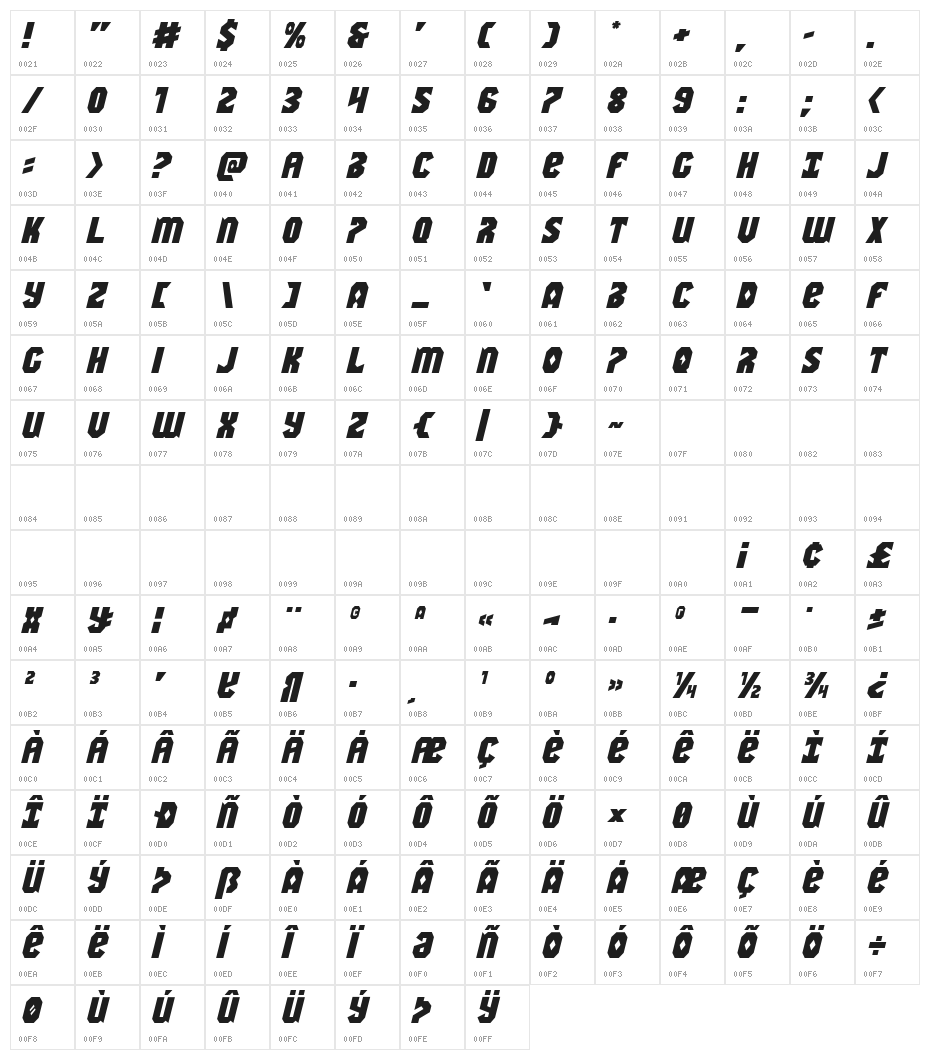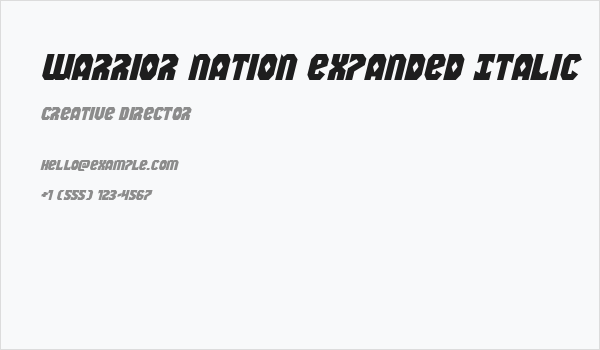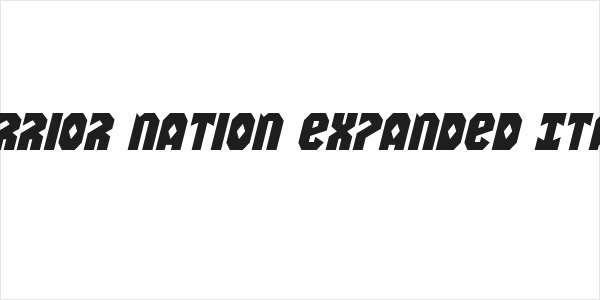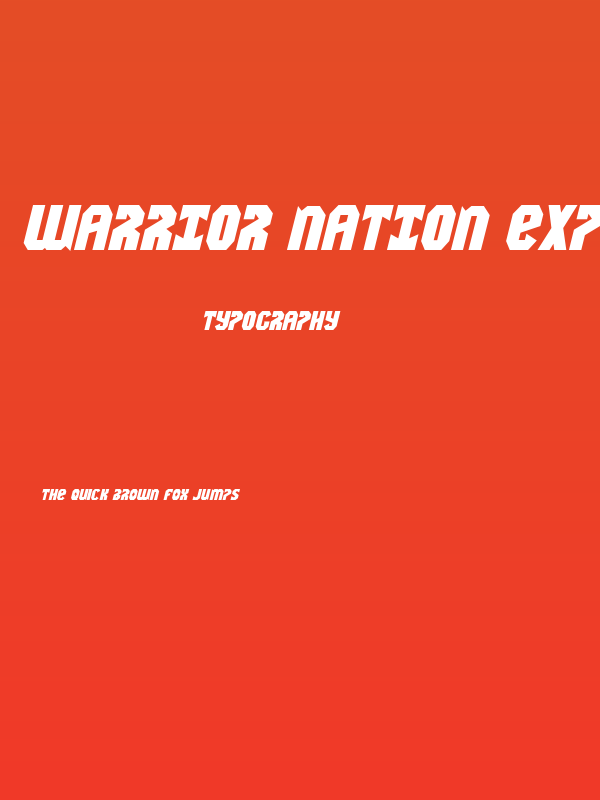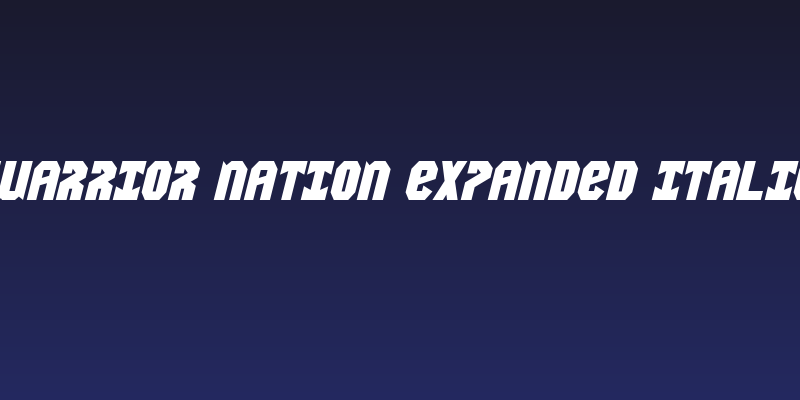
Warrior Nation Expanded Italic Font
Warrior Nation Expanded Italic Description
This font features a bold and dynamic style with a distinctly angular and geometric design. The characters are expanded and italicized, giving them a sense of movement and energy. The sharp edges and strong lines create a powerful visual impact, making it suitable for attention-grabbing headlines or logos. The uppercase and lowercase letters maintain a consistent style, with numbers and special characters following the same bold and angular theme. The overall appearance is modern and assertive, ideal for projects that require a strong and commanding presence.
Proposed ProjectsIdeal for sports branding, action movie posters, video game titles, and dynamic advertising campaigns.